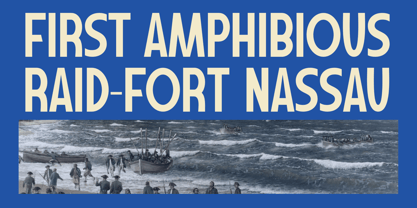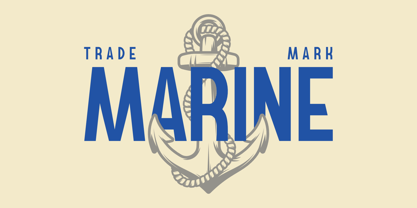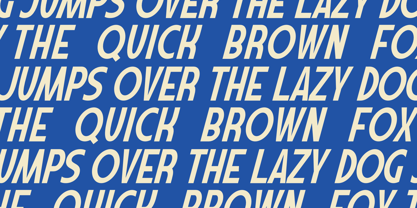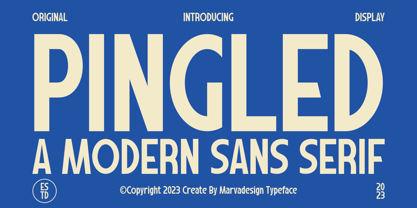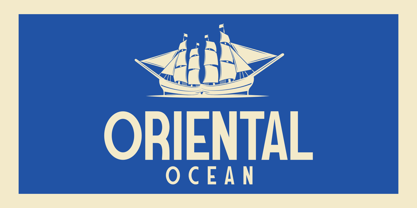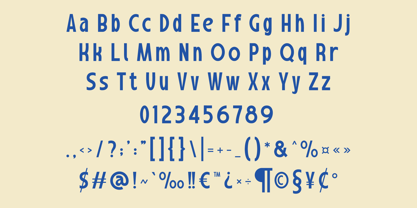
Pingled
by Marvadesign
The Pingled Font Family was designed by Febrie Setiawan and published by Marvadesign. Pingled contains 1 styles. More about this family
Introducing Pingled is a modern sans-serif typeface designed for bold and impactful visual statements. Its clean, geometric structure combined with a slightly condensed form makes it perfect for headlines, branding, and display purposes. The font exudes a contemporary aesthetic while maintaining excellent readability, making it suitable for both digital and print media. The contrast between thick and thin strokes gives Pingled a distinctive and dynamic appearance, ensuring a strong presence in any design composition. Whether used in editorial design, marketing materials, or packaging, Pingled provides a refined yet striking typographic solution.
Designers: Febrie Setiawan
Foundry: Marvadesign